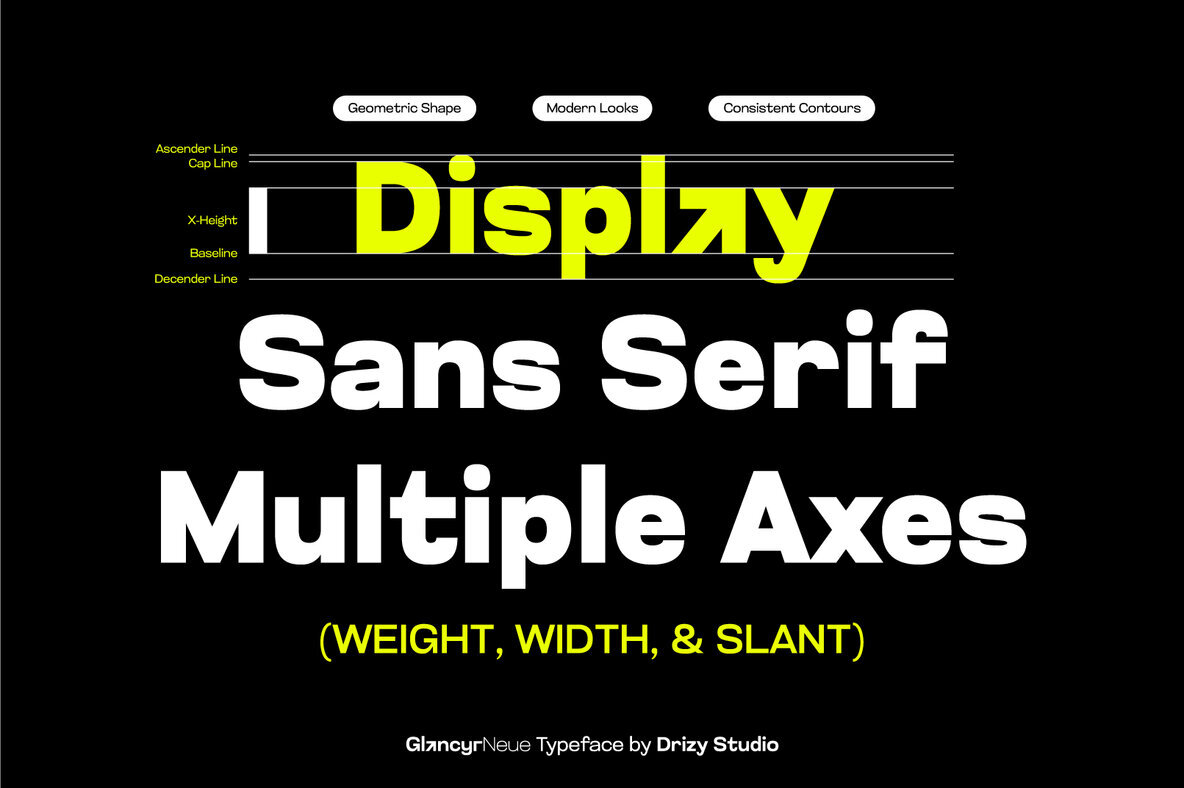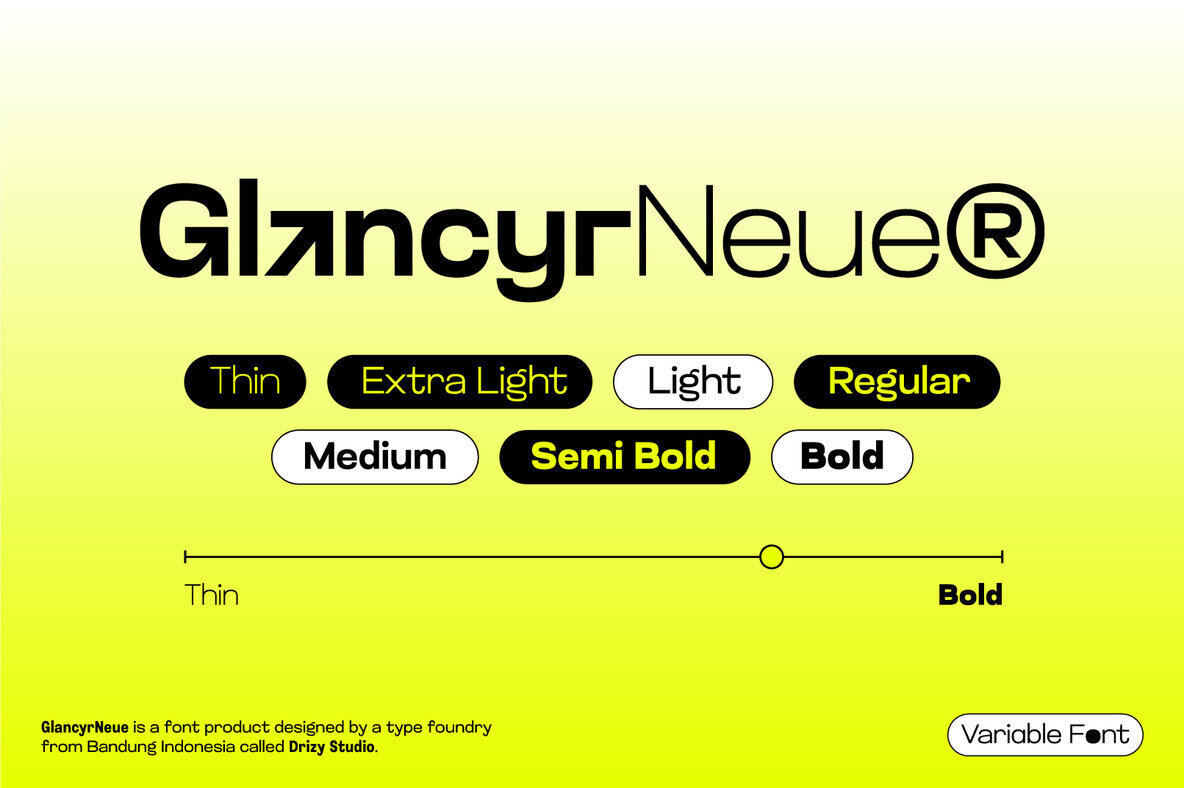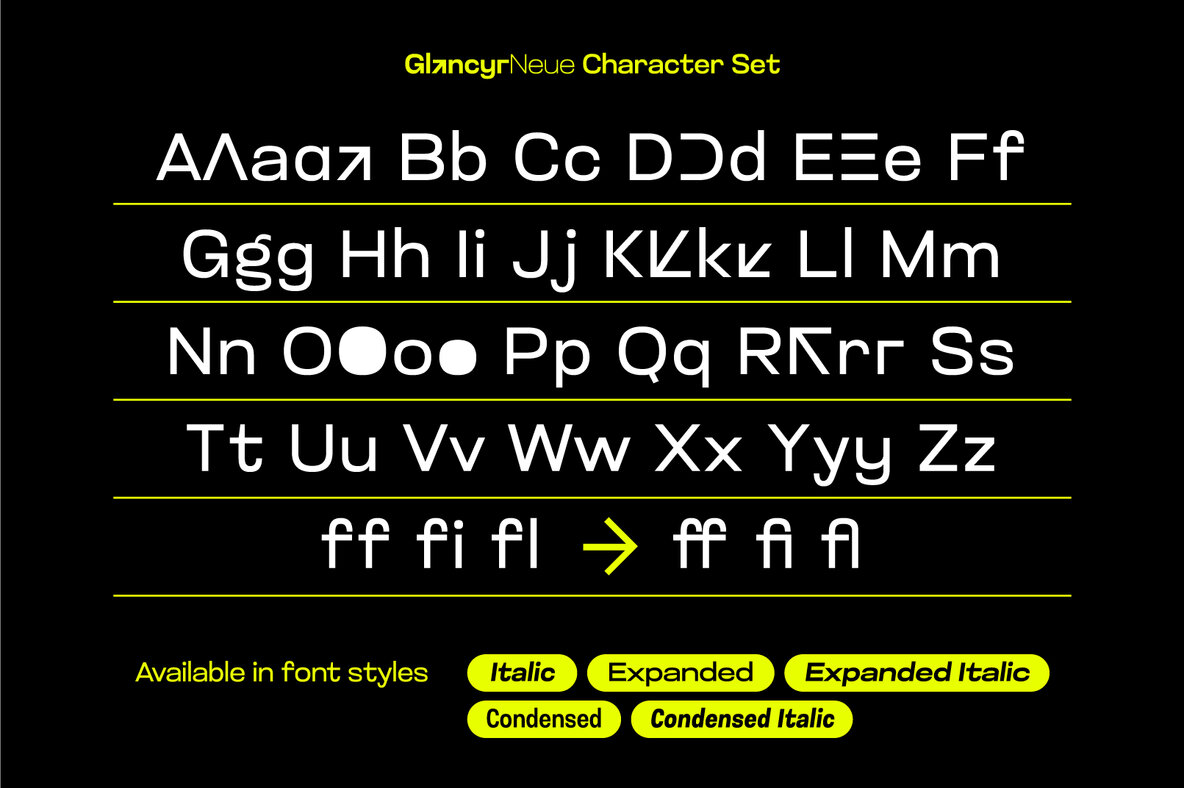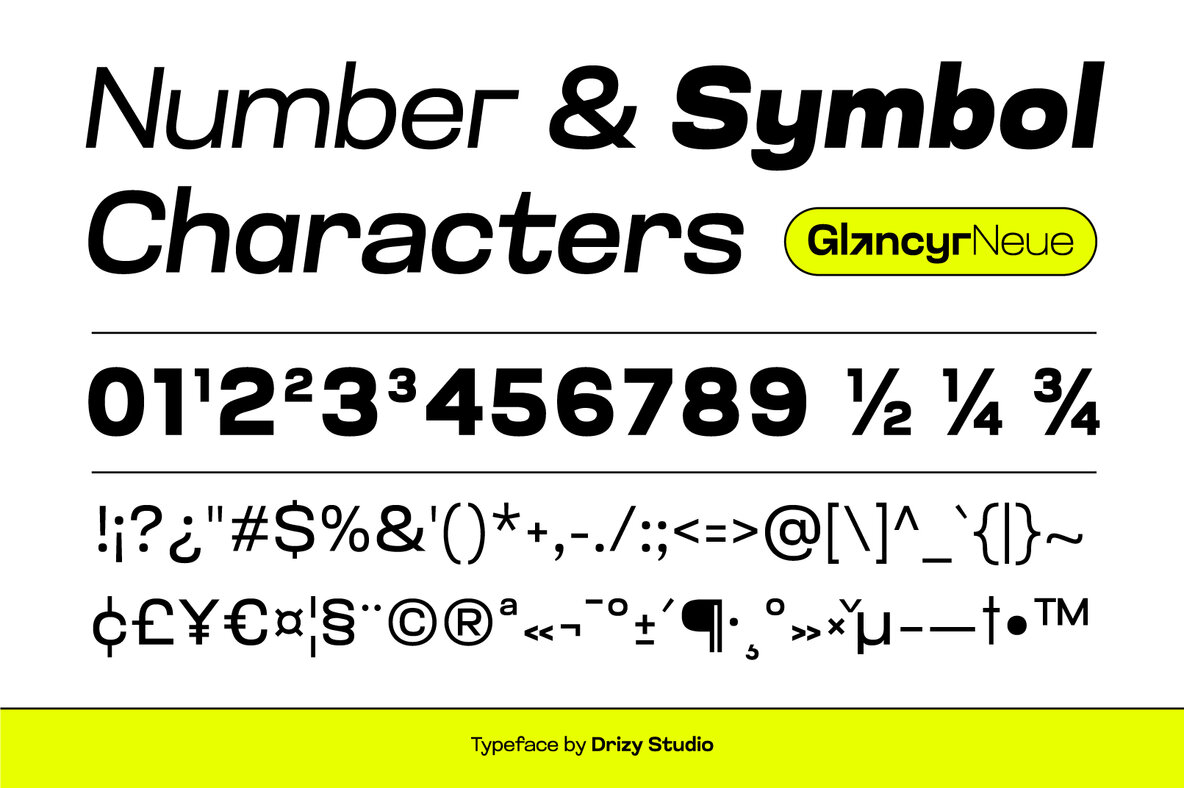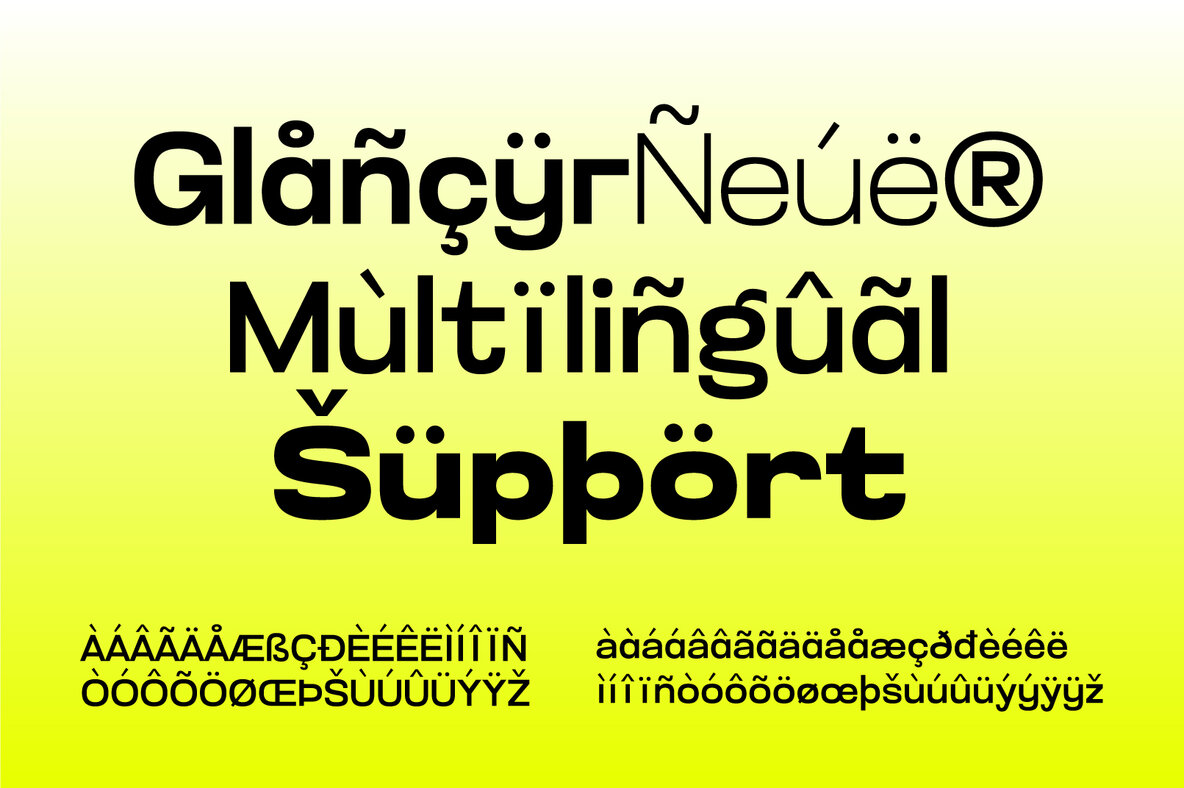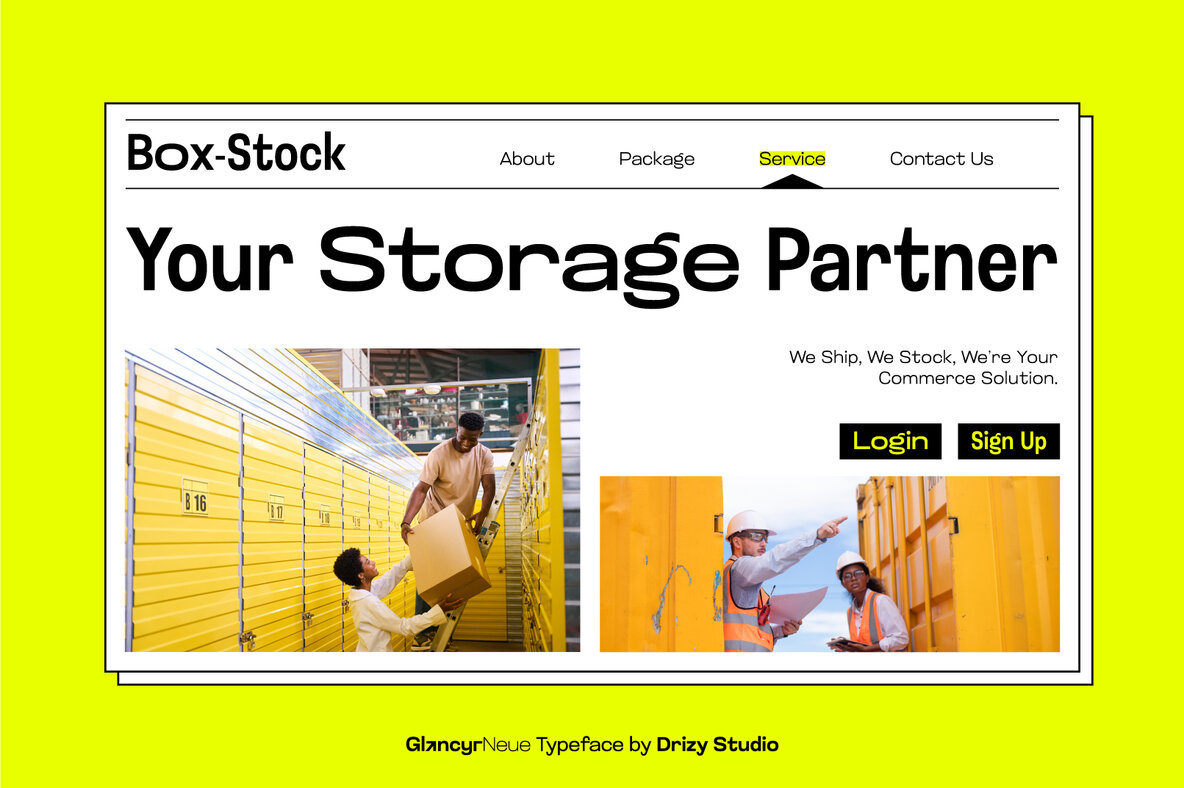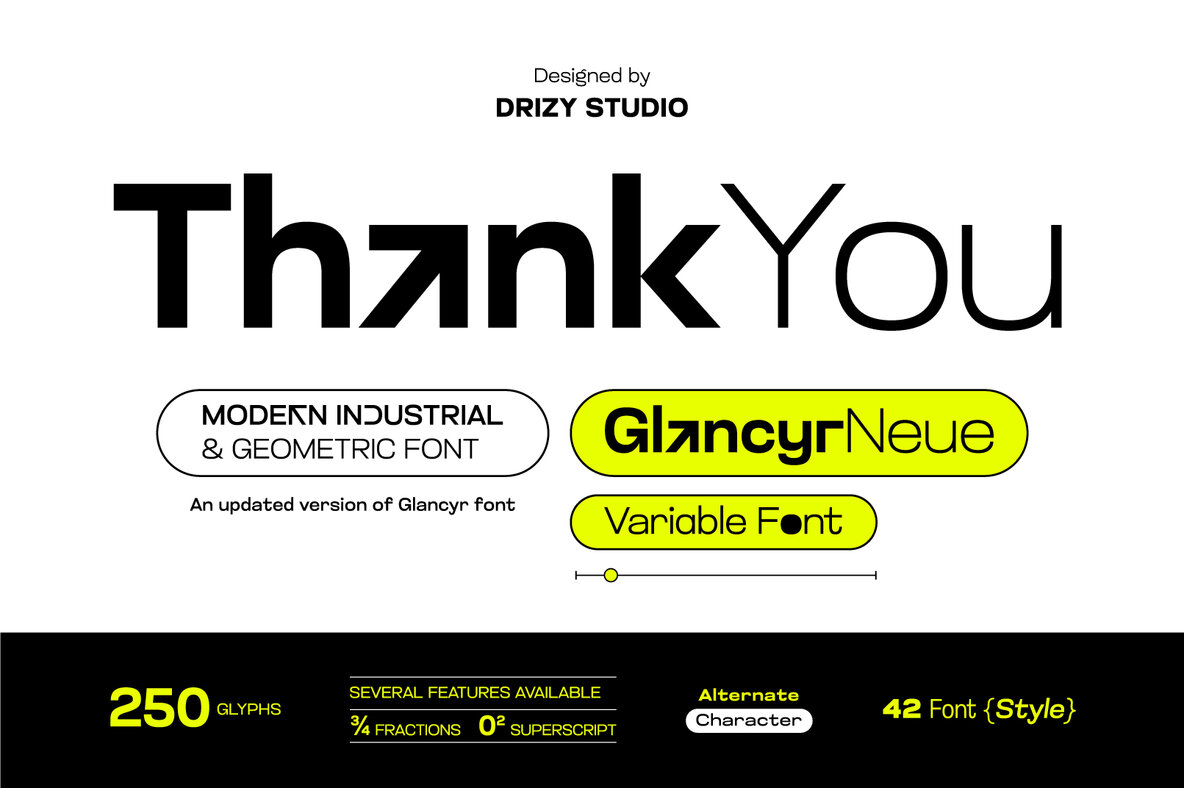
GlancyrNeue Font
GlancyrNeue is a sleek typeface that combines modern elegance with industrial strength, characterized by clean lines, geometric shapes, and contemporary aesthetics. This versatile font is perfect for various design projects, offering a wide range of stylistic options that cater to diverse creative needs.
Key features include a comprehensive character set with both uppercase and lowercase letters, punctuation, and numbers. GlancyrNeue offers multiple weights from Thin to Bold, making it highly adaptable for various design contexts. Additionally, it supports multiple languages and includes stylistic alternates, as well as standard and discretionary ligatures, allowing for enhanced typographic creativity.